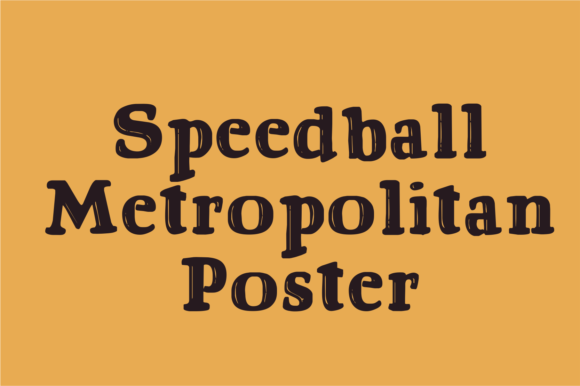
Speedball Metropolitan Poster Font
Ignite your designs with the allure of the Speedball Metropolitan Poster Font, a creation of Intellecta Design that's poised to elevate your typography to new heights. Experience the captivating charm of this display font, meticulously crafted to deliver an unforgettable visual impact in your projects.
With its clean lines and bold strokes, the Speedball Metropolitan Poster Font exudes an air of retro elegance, harkening back to the golden age of Art Deco design. Each character carries a unique personality, embodying the essence of sophistication and style. Whether you're a seasoned designer or just starting your creative journey, this font is your passport to creating designs that resonate with timeless appeal.
Immerse yourself in a world of limitless possibilities as you explore the diverse applications of the Speedball Metropolitan Poster Font. Its versatility knows no bounds, extending from eye-catching posters and flyers to enchanting invitations and social media graphics. Envision your words taking center stage, commanding attention with their distinctive presence.
Unleash your creativity and make a lasting impression with the Speedball Metropolitan Poster Font. Its remarkable ability to capture the essence of luxury and charm will transform your designs into captivating masterpieces. Elevate your projects to new heights of visual excellence and leave your audience spellbound.
Don't miss this chance to add a touch of timeless elegance to your creative arsenal. Embrace the beauty of the Speedball Metropolitan Poster Font and embark on a journey of design brilliance.